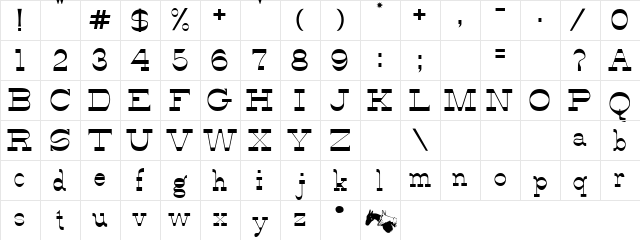
Alfredo's Dance Regular
Design Context for Alfredo's Dance Typeface
Alfredo's Dance offers clean, dependable letterforms without strong stylistic allegiance, making it a practical choice for designers who need flexibility.